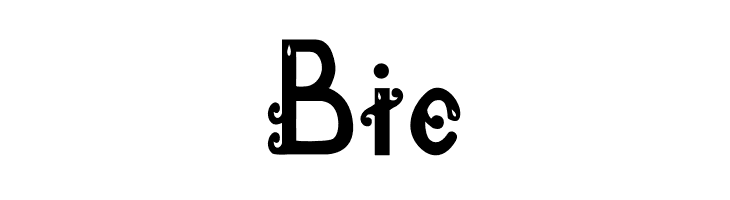
• DBL MedievalDesign
Ornamental medieval-style decorative glyph set.
• DDD Pipe Bold
• DDD Round Square
• De Barong
( Fonts by Annastasia Jessica )
A decorative font with ornate curls and embellishments.
• Dead Skull
A whimsical, bone-like font with a playful and spooky aesthetic.
• Dead World
• Deanna
( Fonts by Christopher Hansen )
A bold, playful font with irregular, jagged characters and a hand-drawn feel.
• Deanna's Ivy
( Dani Foster Herring - dani3d.com/ )
A decorative font with ivy-like patterns entwined around each letter.
• Dear Elisa
A graceful script font with fluid, connected letters and a handwritten style.
• Dear Emily
A playful, handwritten font with a whimsical and friendly style.